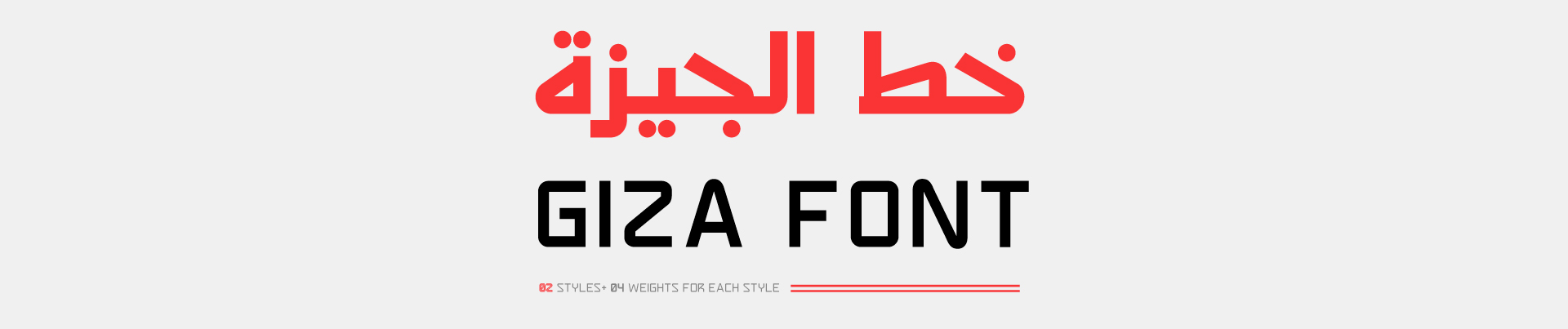
About Giza Font
Introduction:
Giza is a modern geometric font that is inspired by the Kufic script for Arabic. Basic Latin was designed by matchmaking the Arabic letters.
Weights and Supported Languages:
Giza font consists of 2 styles (Regular & Inline) with 4 weights for each.
It supports Arabic and Basic Latin.
Usage:
Suitable for headlines, logos, poster design, t-shirts, flyers, cover albums, quotes, branding, magazines, social media, advertisements, and product designs.